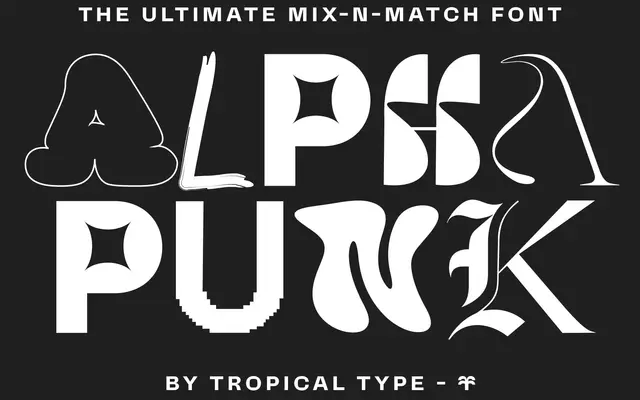
Alpha Punk
A display typeface offering four distinct alternate letterforms per character, intended for deliberately chaotic and experimental typographic arrangements.
Each letter in Alpha Punk ships with four substantially different design options, accessible via uppercase, lowercase and their respective alternates within the font files. The mix-and-match approach is aimed at designers wanting unpredictable, irregular compositions without manually layering different typefaces. Files are supplied in OTF, TTF, WOFF, WOFF2 and SVG formats, with Latin Extended glyph support covering Polish, French and several other Western European languages.
An experimental display typeface with multiple alternate letterforms per character, designed for wild and unconventional typographic compositions rather than text use.